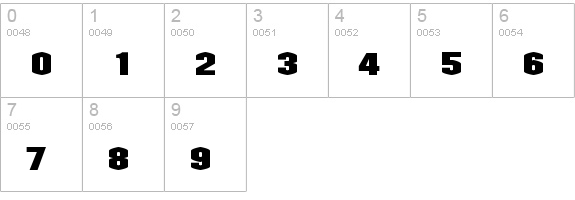
CollosBold Font Details
Introducing CollosBold font, a sleek and modern typeface that exudes confidence and boldness. With its strong, thick strokes and clean lines, CollosBold is the perfect choice for making a statement in your designs. Whether you're creating a striking logo, eye-catching headlines, or impactful posters, this font will surely command attention. What's even better is that CollosBold is completely free to download at FontsMarket.com. Yes, you read that right - you can access this powerful font at no cost! Don't miss out on the opportunity to add CollosBold to your font collection and take your projects to the next level. Download it today and let your creativity shine with this impressive typeface.